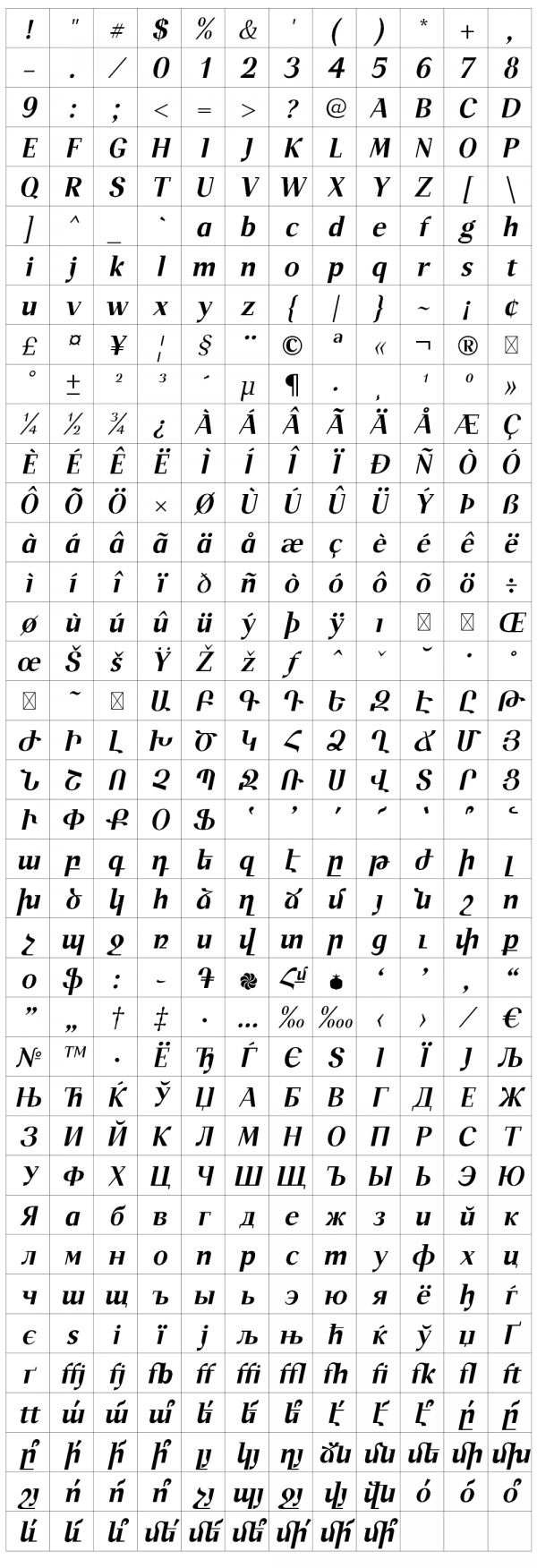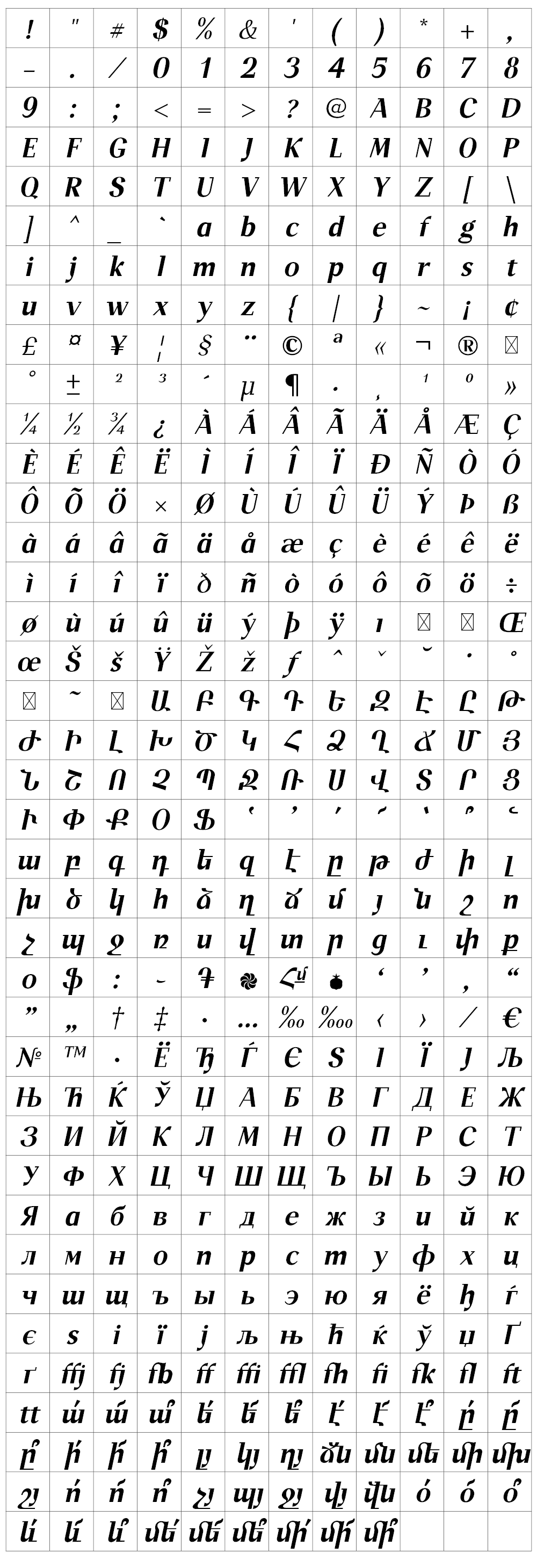
ASF Daniel DemiBold Italic
Designer: Angela Poghosova
Design date: 2013
The font family includes Latin, Armenian and Cyrillic alphabet systems.
To be used in texts.